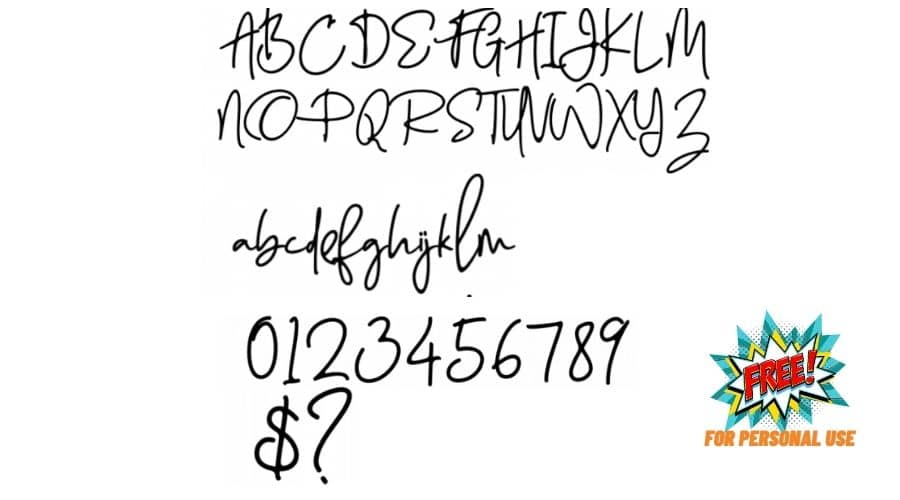
Eden Hazard Font
Eden Hazard is a beautiful and refined typeface. Eden Hazard was designed and shared by Aldedesign on 2019.
Eden Hazard is a beautiful handwritten font. Starting with uppercase, lowercase, numeric, and some special characters and alternatives, this typeface has it all. This font is available in both TrueType and OpenType formats. The gorgeous font is available in several variations, including script and handwritten. Some common fonts are- Berthusen Handwritten Font, Alifiyah Handwritten Font, Oklahoma Handwritten Font etc.
Eden Hazard Font features ligatures, titling, and swash, as well as other OpenType features. The Eden Hazard may be used to create unique designs, covers, shop and store names, and logos. Eden Hazard is also suitable for branding projects, homeware designs, product packaging, and as a classy text overlay on any background image. This font also can be used in the various brands cover photo. The font gives an elegant and stylish look to any work.